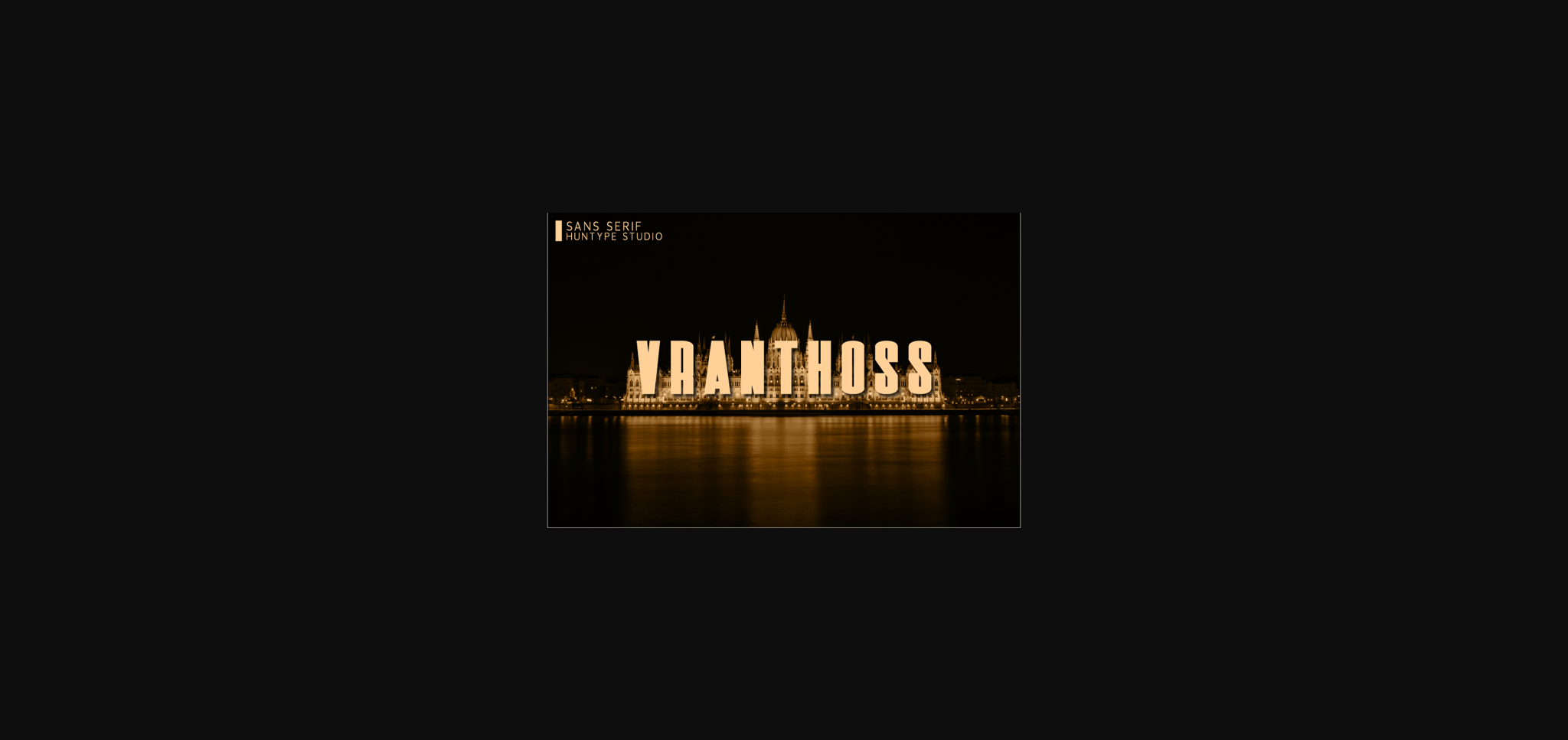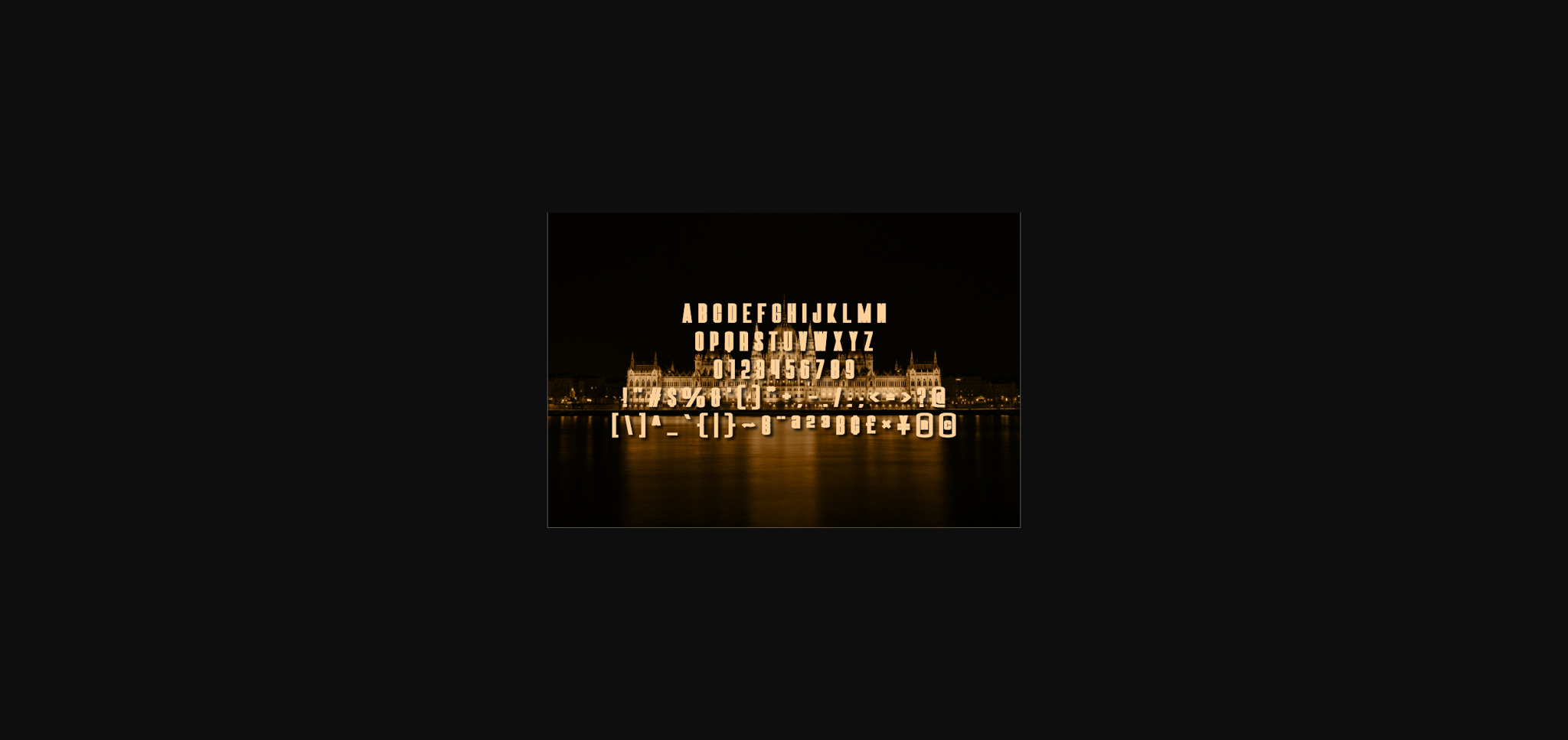
HomeSans Serif FontsVranthoss Font Sans Serif Fonts Vranthoss Font FacebookXPinterestWhatsApp 1 of 4 ... Vranthoss Font Poster 2... Vranthoss Font Poster 3... Vranthoss Font Poster 4... About Vranthoss Font Vranthoss is a strong sans serif font. Whether you’re looking for fonts for Instagram or calligraphy scripts for DIY projects, Vranthoss will turn any creative idea into a true piece of art! DOWNLOAD NOW People also explored Nathallie Font Forever Font Birthday Font HP Lovecraft Historical Society Snow Bright Duo Font Broadway Capitals Font Brush Touch Font Stephanie Font Belisa Font 389 0 TagsVranthoss Font Previous articleChynzone FontNext articleRedmasse Font LEAVE A REPLY Cancel reply Comment: Please enter your comment! Name:* Please enter your name here Email:* You have entered an incorrect email address! Please enter your email address here Website: Save my name, email, and website in this browser for the next time I comment. Personal Use Free Hysteria Santa Personal Use Free Read more about this font Callisa Script Personal Use Free Read more about this font Advantage Personal Use Free Read more about this font BD Algebra Personal Use Free Read more about this font BLOG Free vs Paid Fonts: Why Investing in Premium Fonts Is Worth It Free vs Paid Fonts: Why Premium Fonts Are Worth It in 2025 The debate of free vs paid fonts continues in the design world. While... The 10 Best Handwriting Fonts to Add Personality to Your Designs Exploring Font Trends Free Fonts Risk: Why Free Fonts Can Be Dangerous for Designers